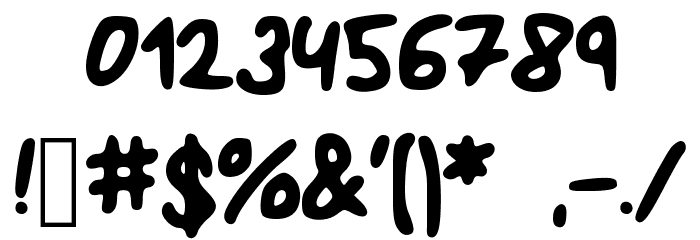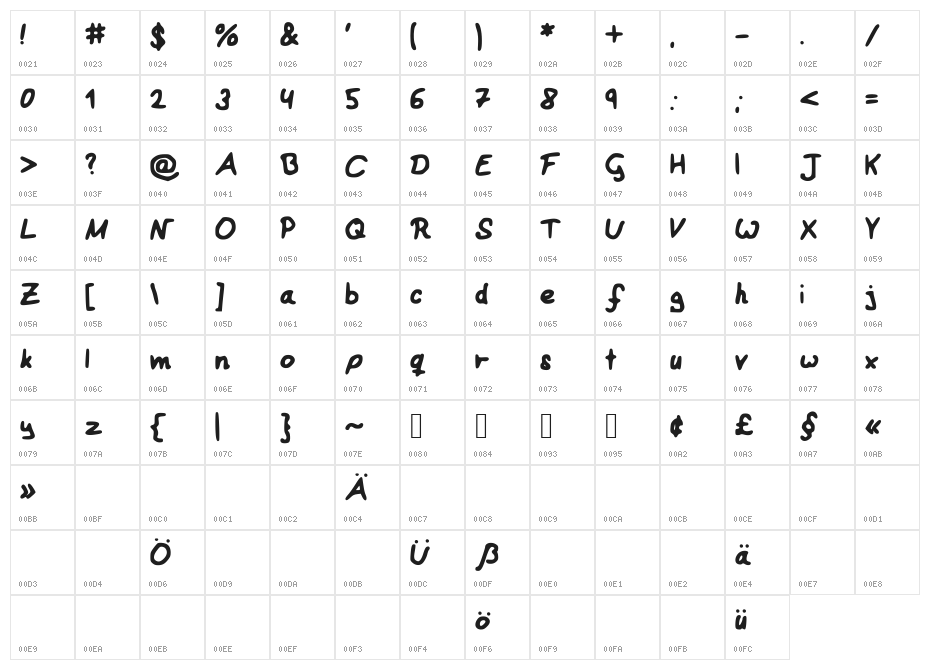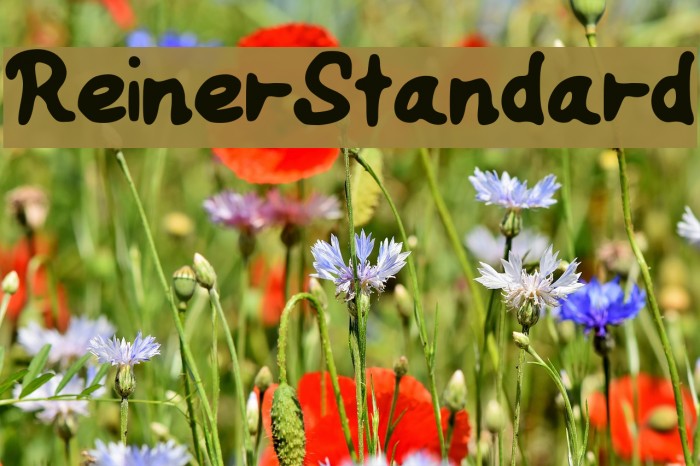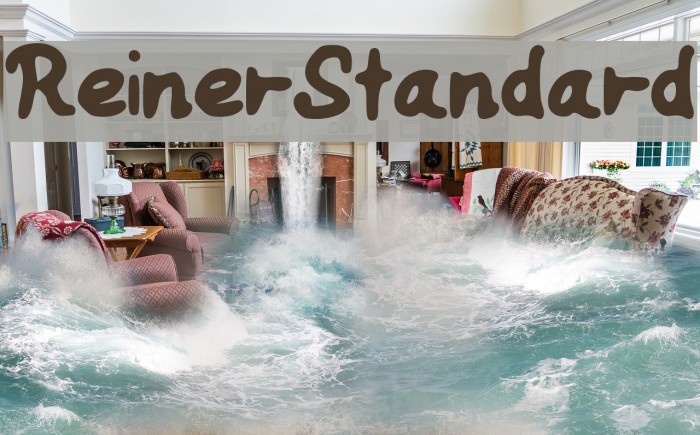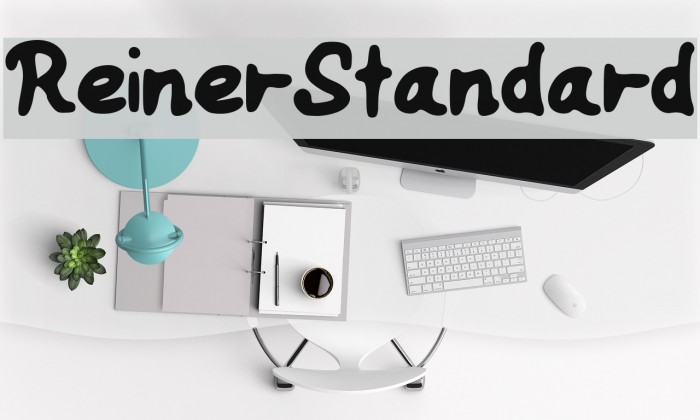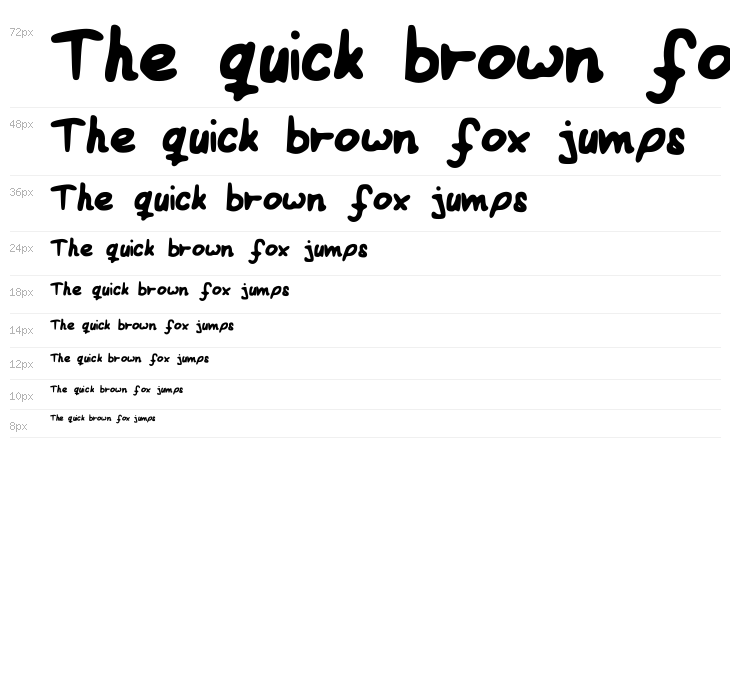
ReinerStandard Font
ReinerStandard Description
This font features a playful and informal handwritten style, characterized by its bold and rounded letterforms. The strokes are thick and consistent, giving it a friendly and approachable appearance. The characters have a slightly uneven baseline, adding to the casual and dynamic feel. The uppercase and lowercase letters are well-balanced, with a noticeable contrast between the two. Numbers and special characters maintain the same playful aesthetic, making this font versatile for various creative projects.
| Proposed Projects | Ideal for children's books, playful branding, casual invitations, and creative posters. |